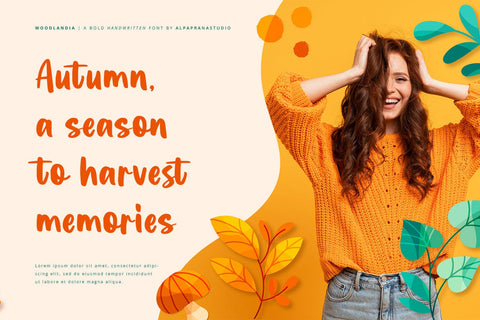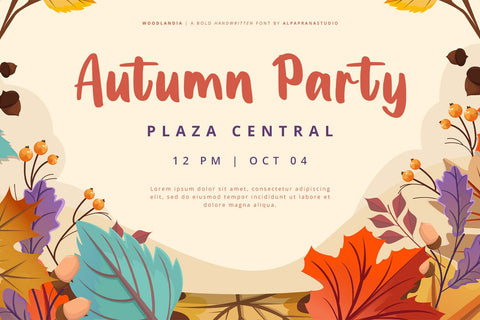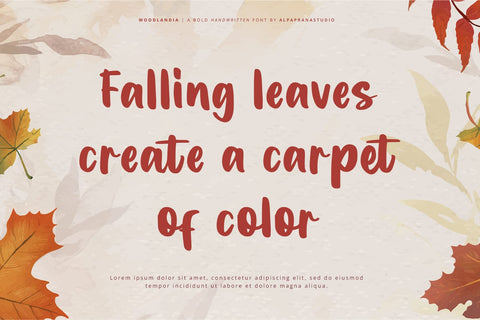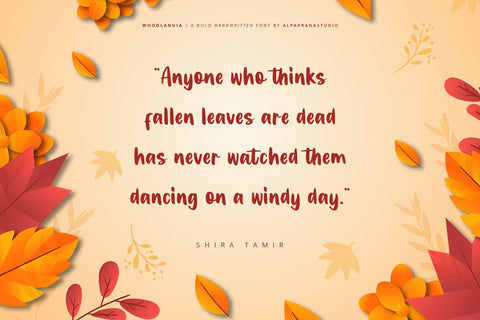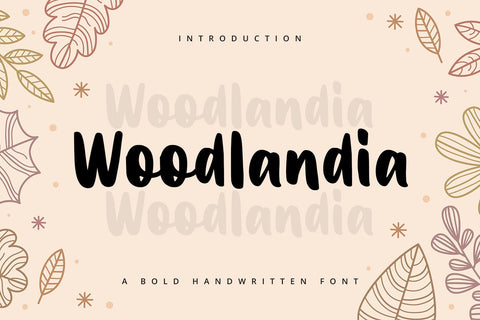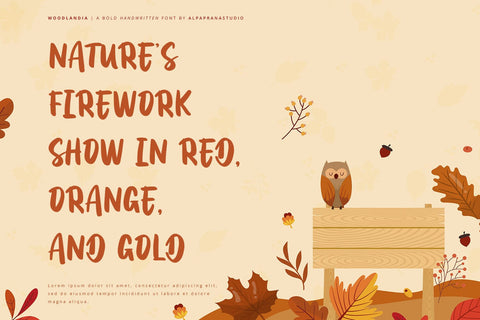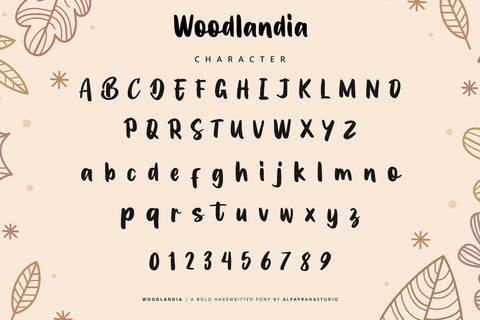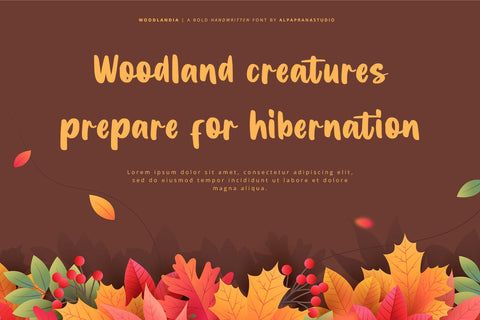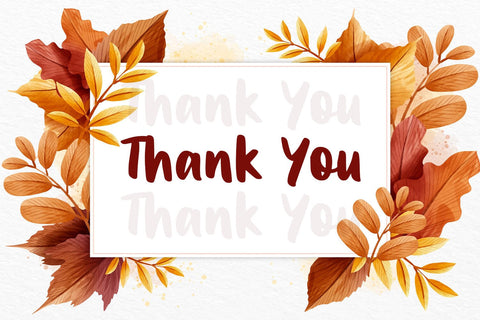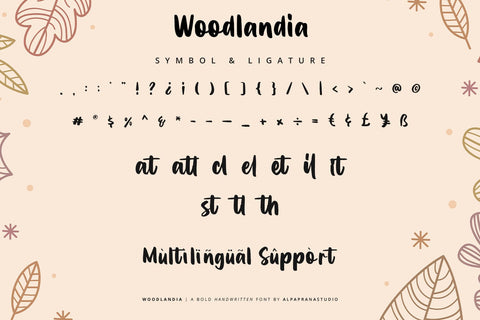
Woodlandia - Handwritten Font
Woodlandia is a bold handwritten font with modern feels. It will be perfectly used for Branding, Logo Design, Lettering, Logotype, Clothing, Poster, magazine, packaging, posters, shopping bags, t-shirts, book covers, photography, special events and other design project.